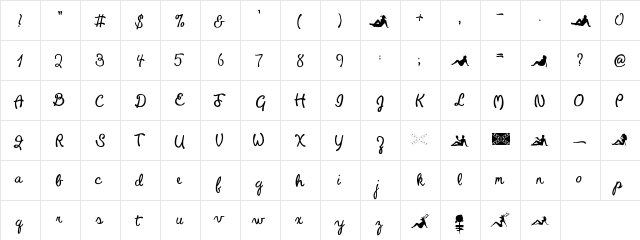
Peterbuilt Medium
Design Context for Peterbuilt Typeface
Peterbuilt is a composed and adaptable typeface that performs quietly and consistently across a wide range of design contexts.